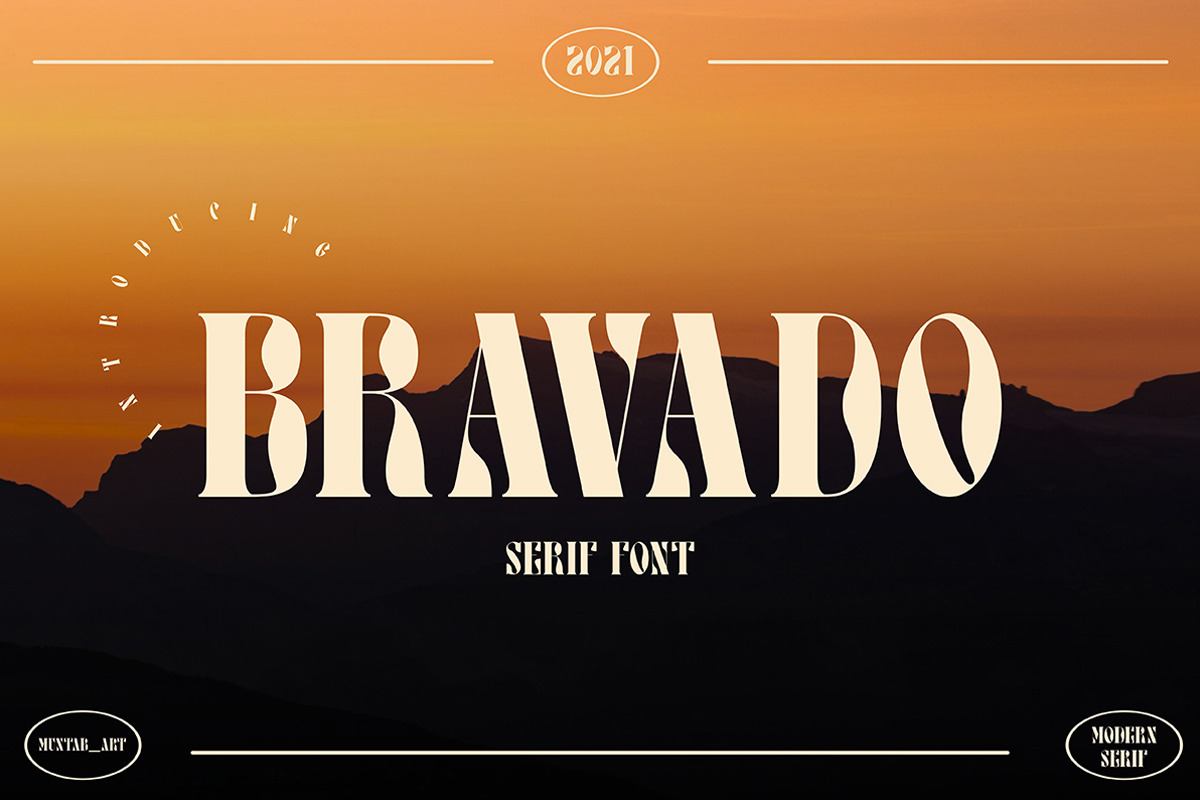
Bravado Serif Display Font Free Download is a bold and stylish typeface that brings strength and sophistication to your designs. Featuring strong serifs, sharp edges, and elegant letterforms, this font is perfect for creating impactful headlines, logos, branding, posters, and more.
The classic serif design combined with modern touches makes Bravado Serif Display Font Free Download an ideal choice for high-end fashion brands, editorial layouts, and creative projects that require a powerful yet refined look. Whether you’re working on a modern publication or an upscale event invite, this font adds timeless character to any project.